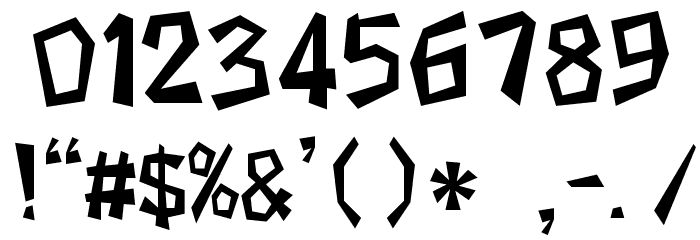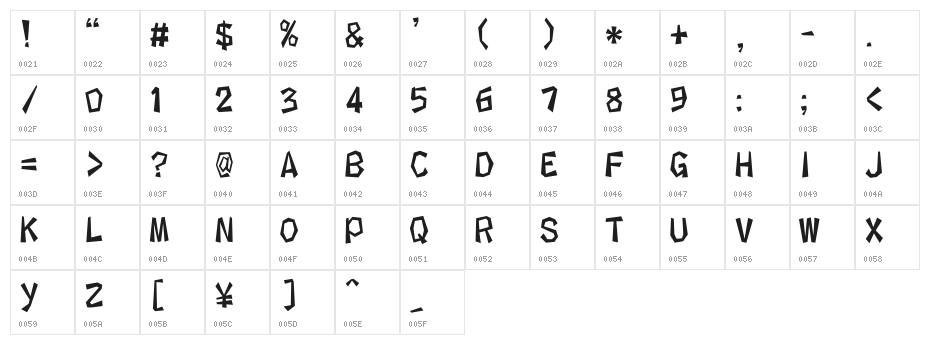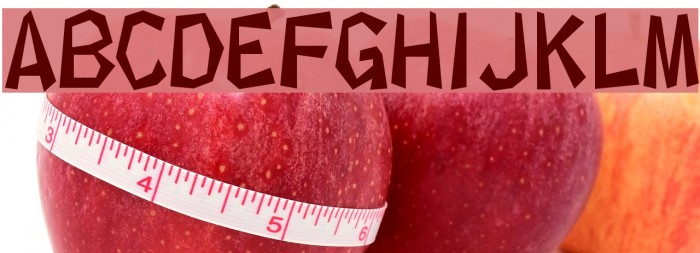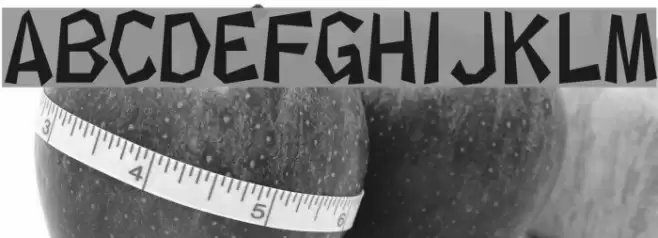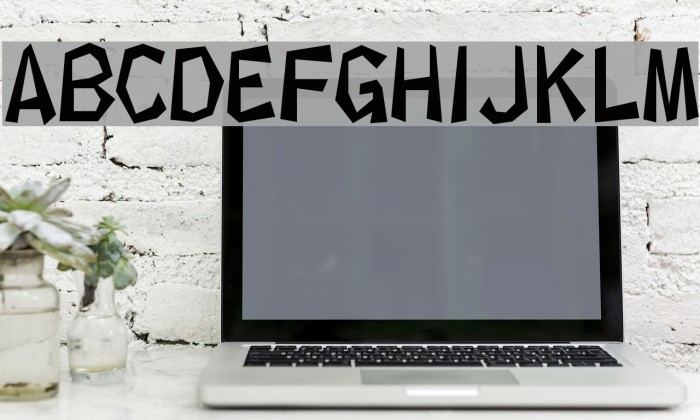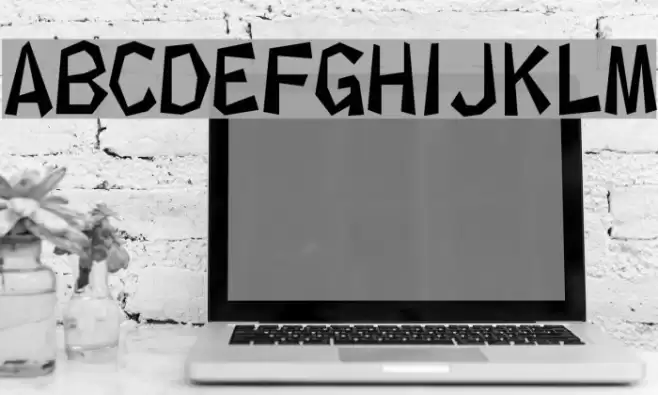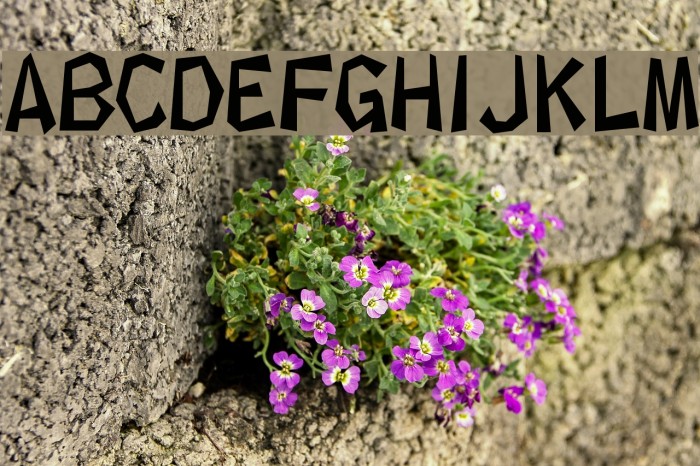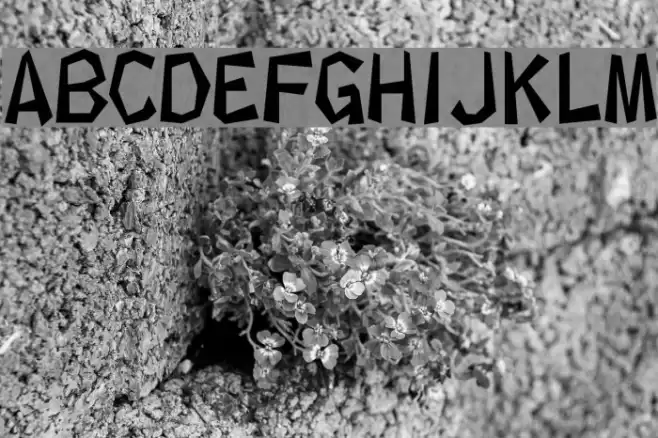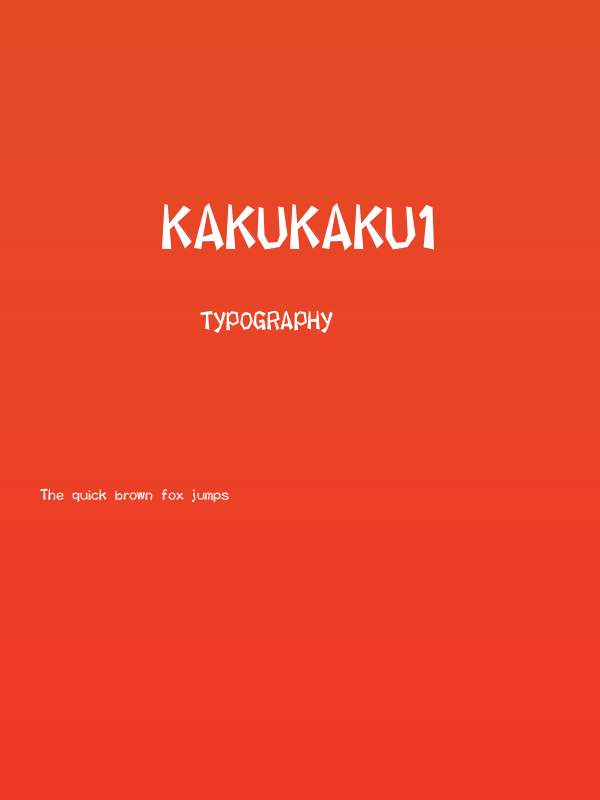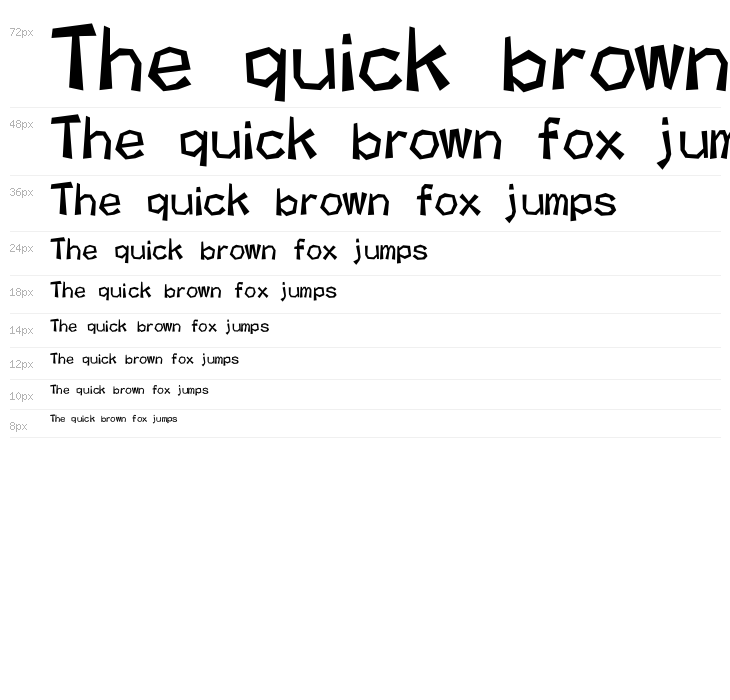
kakukaku1 Font
kakukaku1 Description
This font features a bold, angular design with a distinctly geometric and edgy appearance. The characters are constructed with sharp, irregular angles, giving it a dynamic and energetic feel. The uppercase and lowercase letters maintain a consistent style, with the uppercase being slightly more pronounced. Numbers and special characters follow the same angular theme, ensuring uniformity across all glyphs. The font's unique style makes it stand out, ideal for projects that require a modern and unconventional look.
| Proposed Projects | Perfect for posters, album covers, video game graphics, and edgy branding projects. |